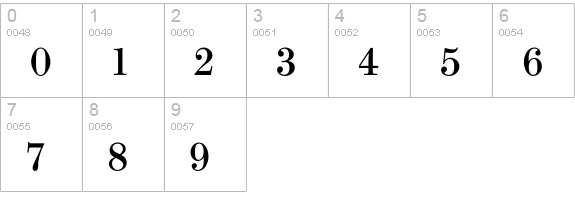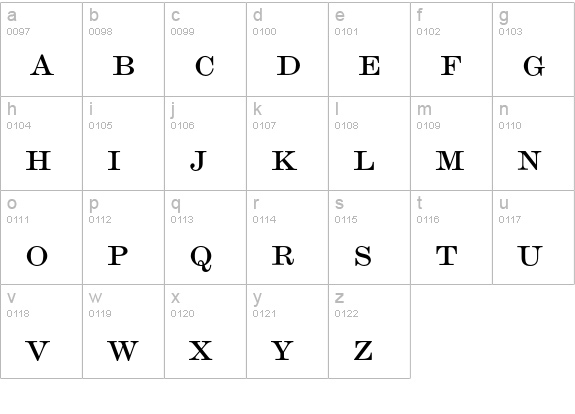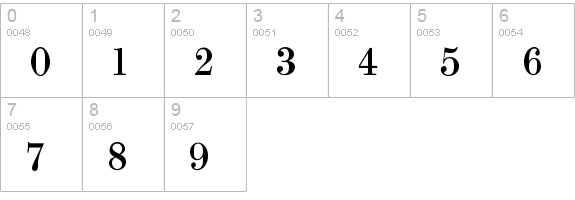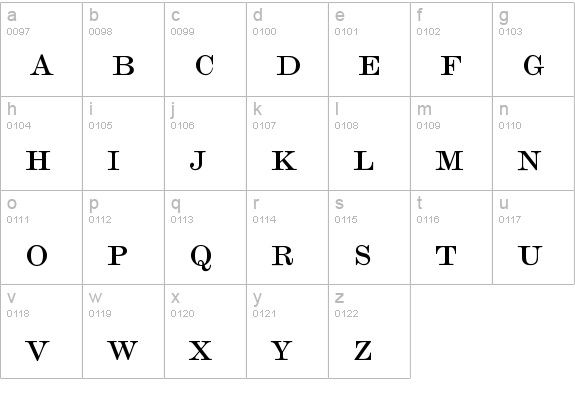
Modern Expert BQ Extended SC Font Details
Modern Expert BQ Extended SC is a distinctive, extended-width variant in the Modern typeface family \xE2\x80\x94 well suited to design and typography projects.
Modern Expert BQ Extended SC font is a sleek and contemporary typeface that exudes professionalism and sophistication. Its extended character set allows for versatility in various design projects, making it a go-to choice for graphic designers and creatives alike. The clean lines and sharp angles of this font give it a modern edge, perfect for conveying a sense of expertise and precision. And the best part? Modern Expert BQ Extended SC font is available for free download at FontsMarket.com. This means that you can easily access this high-quality font without breaking the bank. Whether you're working on branding materials, website design, or any other project that requires a touch of elegance, Modern Expert BQ Extended SC font is sure to elevate your work to the next level. Download it today and see the difference it can make in your designs!